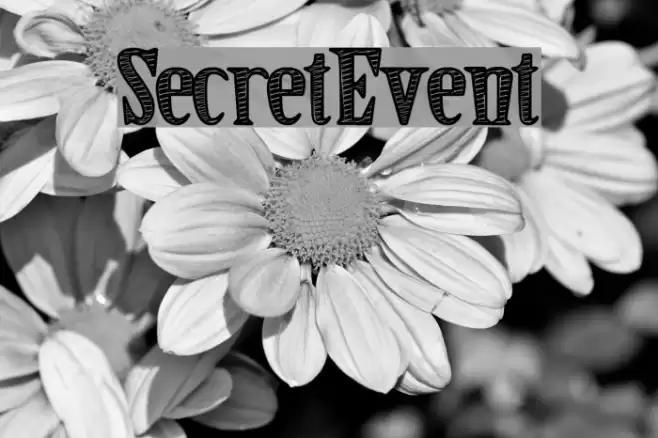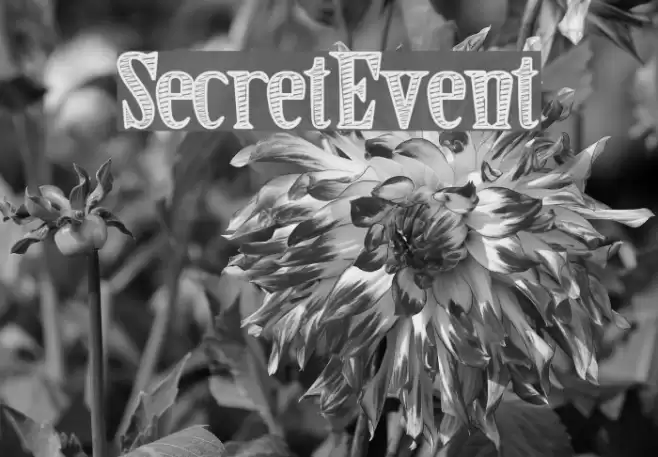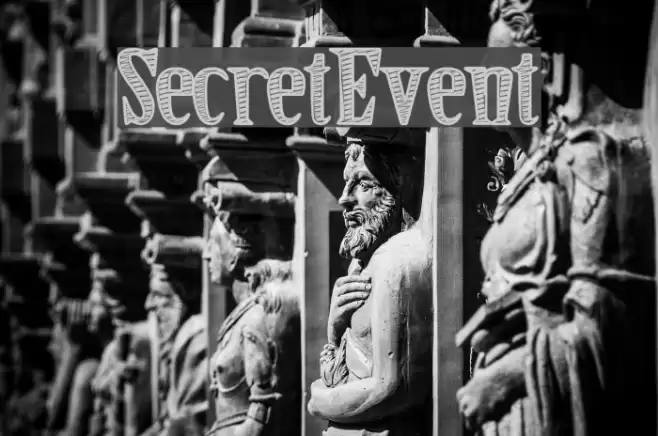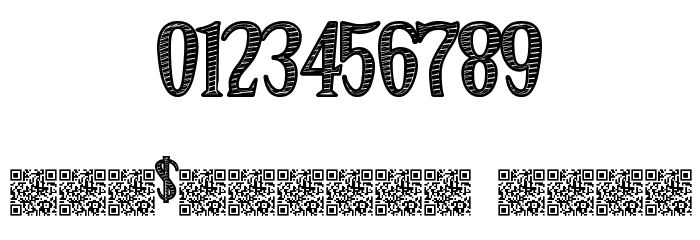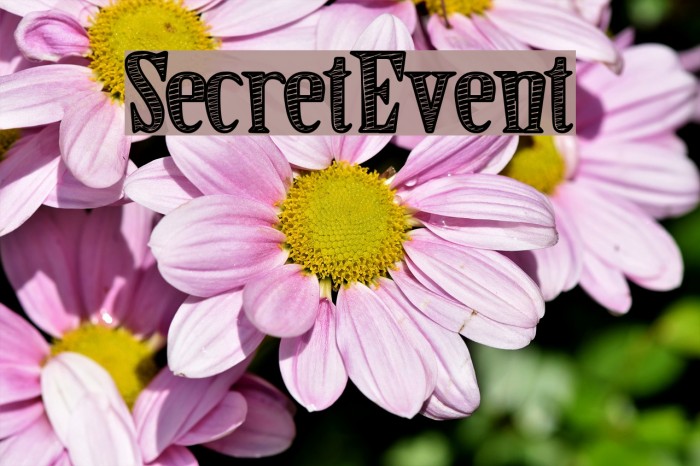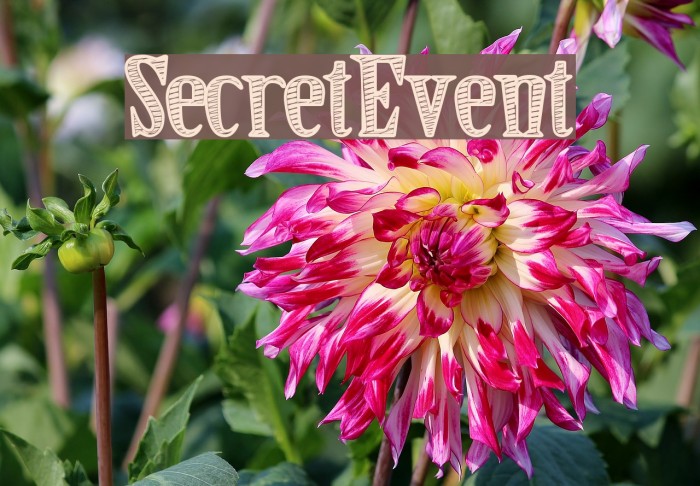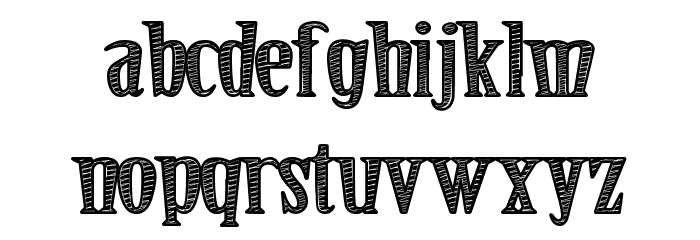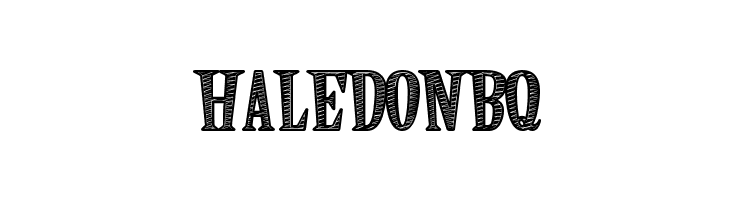
SecretEvent Font
SecretEvent Description
This font features a bold and decorative style with a hand-drawn aesthetic. Each character is outlined with a thick stroke, filled with a pattern of diagonal lines that add texture and depth. The uppercase letters are robust and commanding, while the lowercase letters maintain a consistent style, offering a playful yet structured appearance. The numerals are equally bold, ensuring they stand out in any context. Special characters follow the same design principles, making them cohesive with the rest of the font. This font's unique and artistic flair makes it suitable for projects that require a touch of creativity and individuality.
A bold, decorative font with a hand-drawn, textured style from Uncategorized fonts.
- Proposed Projects: Ideal for posters, event invitations, branding materials, and creative projects that require a distinctive and artistic touch.